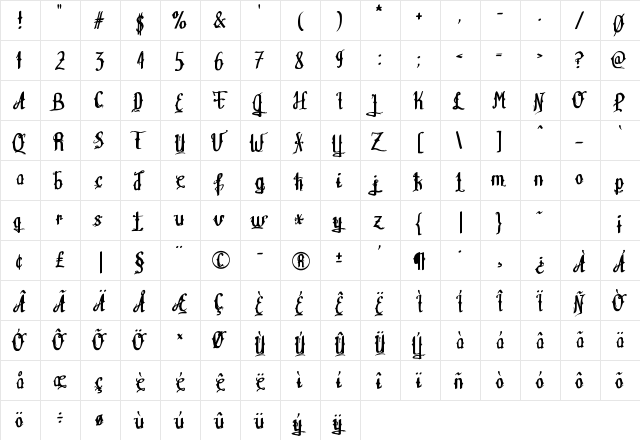
Teitheas Regular
Design Context for Teitheas Typeface
Teitheas is a composed and adaptable typeface that performs quietly and consistently across a wide range of design contexts.